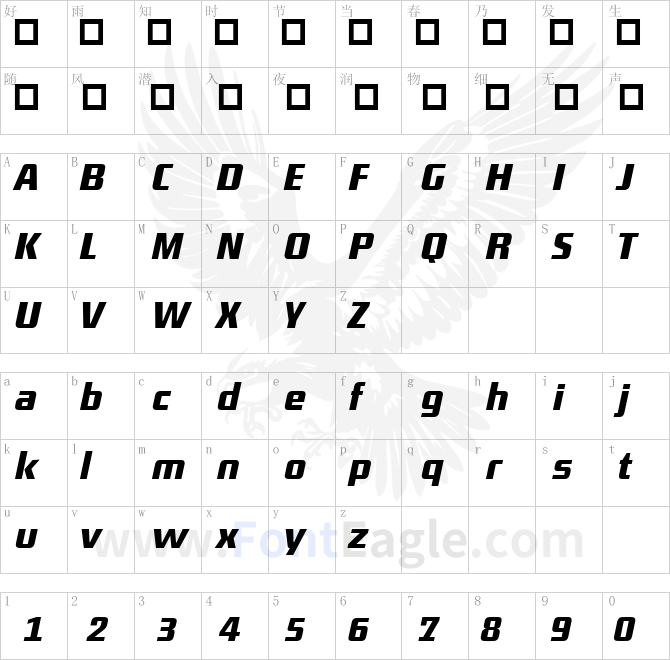
- Font name:DistrictTF-MediumItalic
- Font Subfamily ID:FontShopInternational: DistrictTF-MediumItalic: 2004
- Font Full Name:DistrictTF-MediumItalic
- Font Version:Version 4.460 2004
- Postscript:DistrictTF-MediumItalic
- Font Copyright:2004 Albert Boton, published by FontShop International for the FontFont library.